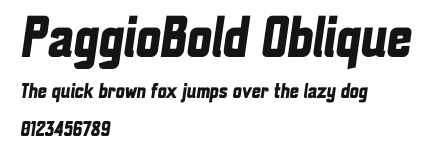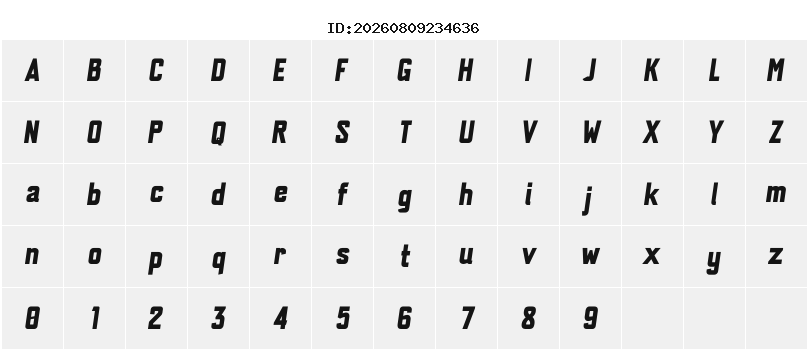
PaggioBold Oblique.ttf is a modern, elegant sans-serif font designed for ultimate readability and visual harmony. Perfect for branding, headlines, web design, and print materials.